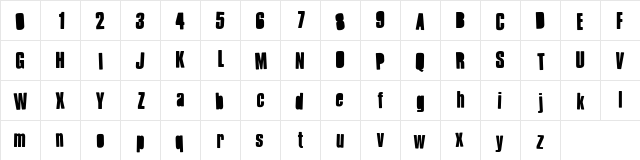
RubOn Bold Font Preview
RubOn Bold
RubOn Bold Font Details
Design Context for RubOn Typeface
RubOn takes a measured approach to typography — its balanced proportions and neutral character make it a reliable workhorse for both digital and print work. Its bold stroke weight gives it real presence on the page.